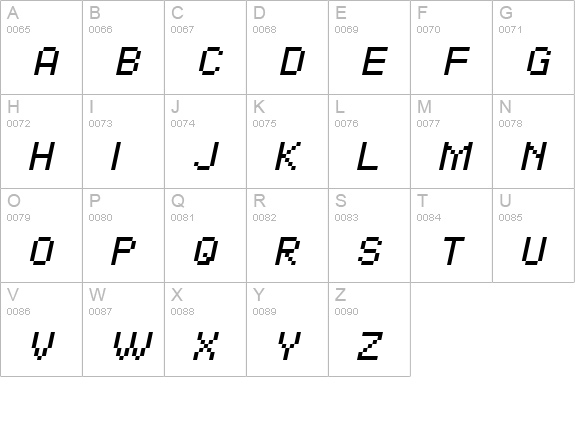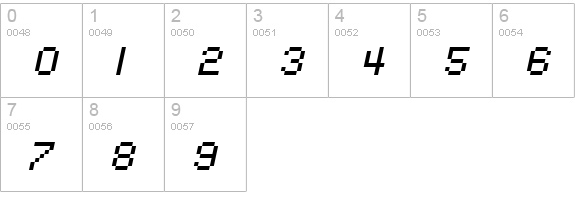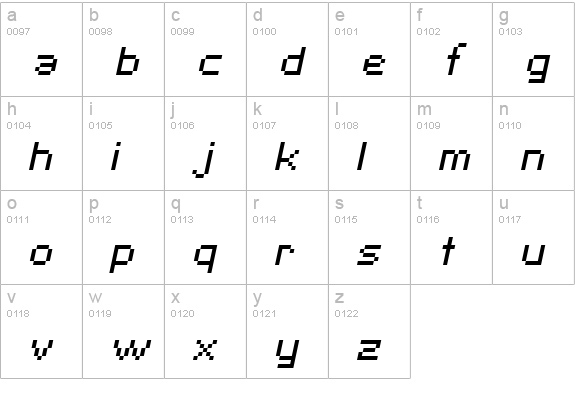
SF Pixelate Oblique Font Details
SF Pixelate Oblique is a distinctive, italic variant in the SF typeface family \xE2\x80\x94 well suited to design and typography projects.
SF Pixelate Oblique is a striking and modern font that will add a touch of futuristic elegance to any design project. With its unique oblique angles and pixelated appearance, this font captures the essence of digital technology and brings a sense of energy and innovation to your creations. The carefully crafted design of SF Pixelate Oblique ensures that each character is bold and distinct, making it perfect for headlines, logos, and eye-catching titles. The oblique angles add a dynamic and edgy feel, giving your designs a sense of movement and excitement. One of the most appealing aspects of SF Pixelate Oblique is that it is available for free. You can easily download this font at FontsMarket.com, where you will find a vast collection of high-quality fonts to suit all your design needs. Whether you are a professional designer or a hobbyist, this font is a valuable addition to your creative arsenal. The versatility of SF Pixelate Oblique is another reason why it stands out. It can be used in a variety of design projects, from websites and apps to posters and advertisements. Its bold and futuristic aesthetic will instantly grab attention and make your designs stand out from the crowd. SF Pixelate Oblique is designed with precision and attention to detail, ensuring that each character is visually appealing and harmonious with the overall design. The pixelated effect adds a touch of nostalgia, reminiscent of retro video games and early digital displays. This font strikes the perfect balance between modernity and nostalgia, making it a timeless choice for any design project. In conclusion, SF Pixelate Oblique is a versatile and visually stunning font that will elevate your designs to new heights. Its free availability at FontsMarket.com makes it easily accessible to all designers, allowing you to create impactful and captivating designs without breaking the bank. Incorporate SF Pixelate Oblique into your next project and watch as it transforms your designs into works of art.